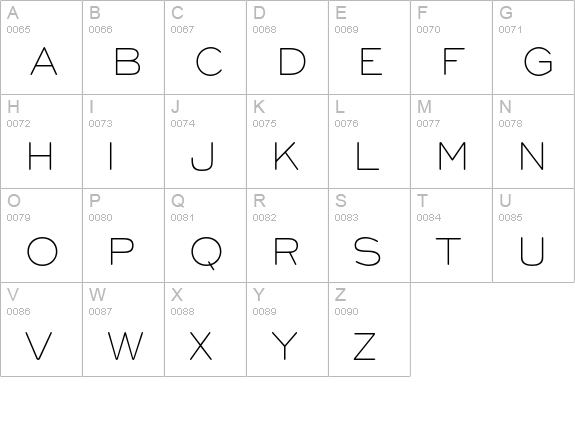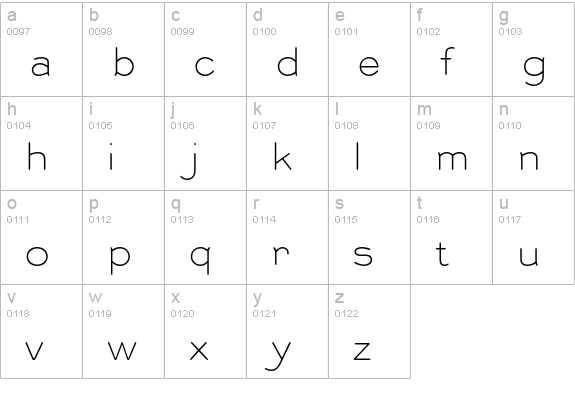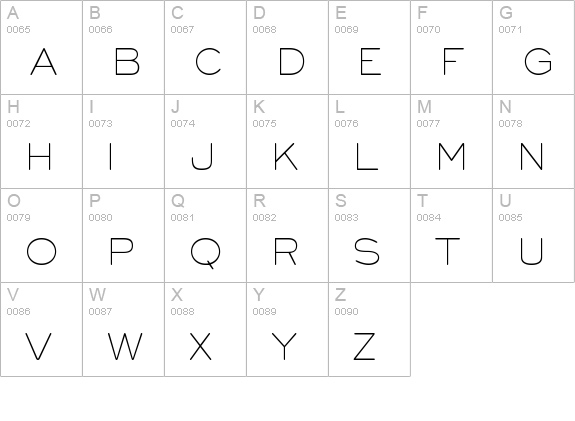
Burin Sans Std Font Details
Burin Sans Std is a modern and versatile sans-serif font that exudes elegance and simplicity. With its clean lines and balanced proportions, this font is perfect for a wide range of design projects, from branding to editorial design. The typeface is characterized by its subtle geometric shapes and smooth curves, making it both highly readable and visually appealing. What sets Burin Sans Std apart is that it is completely free to download at FontsMarket.com. This means that designers and creatives can access this high-quality font without any cost, making it an excellent choice for both personal and commercial projects. Whether you're designing a website, creating a logo, or working on a printed publication, Burin Sans Std offers a professional and polished look that will elevate your design work. Download it today and enhance your typography game with this exceptional typeface.